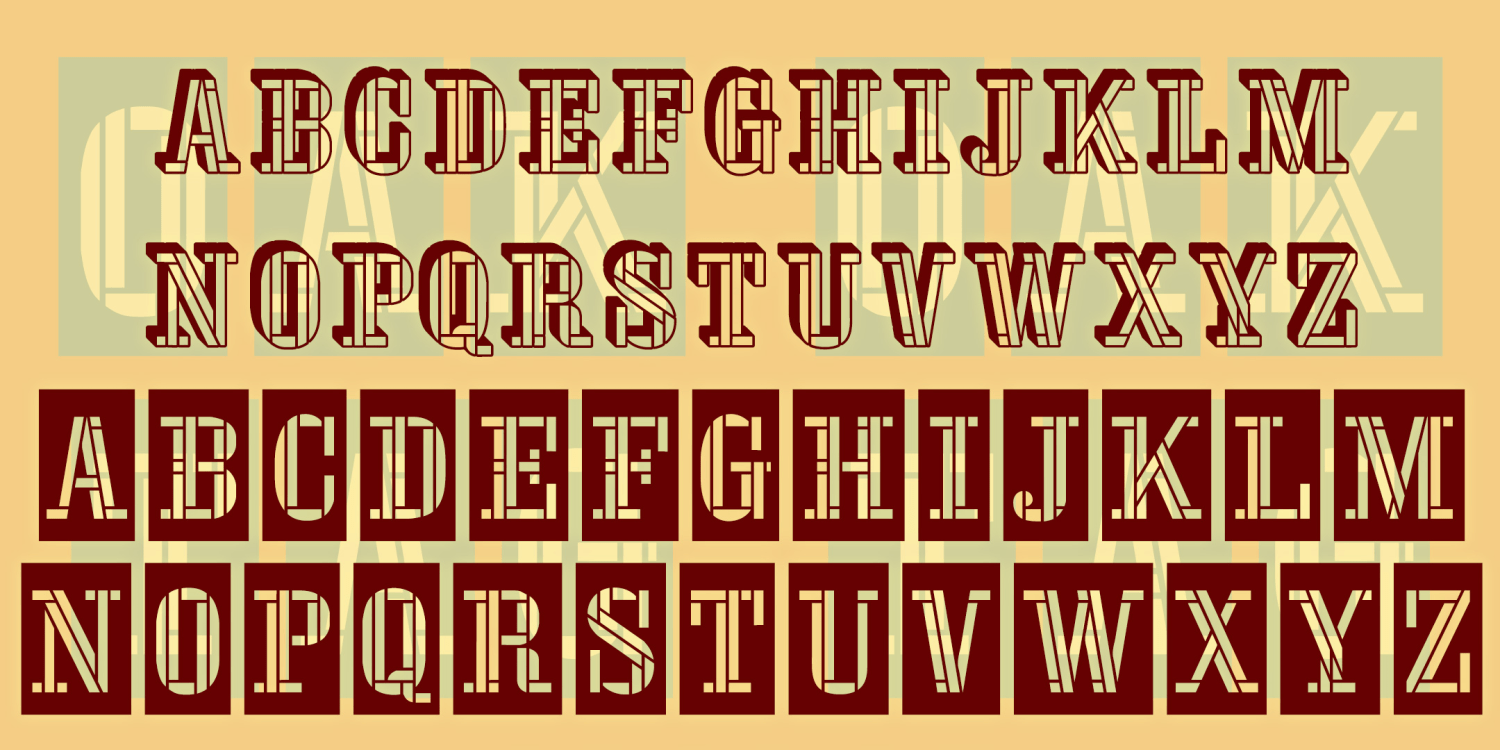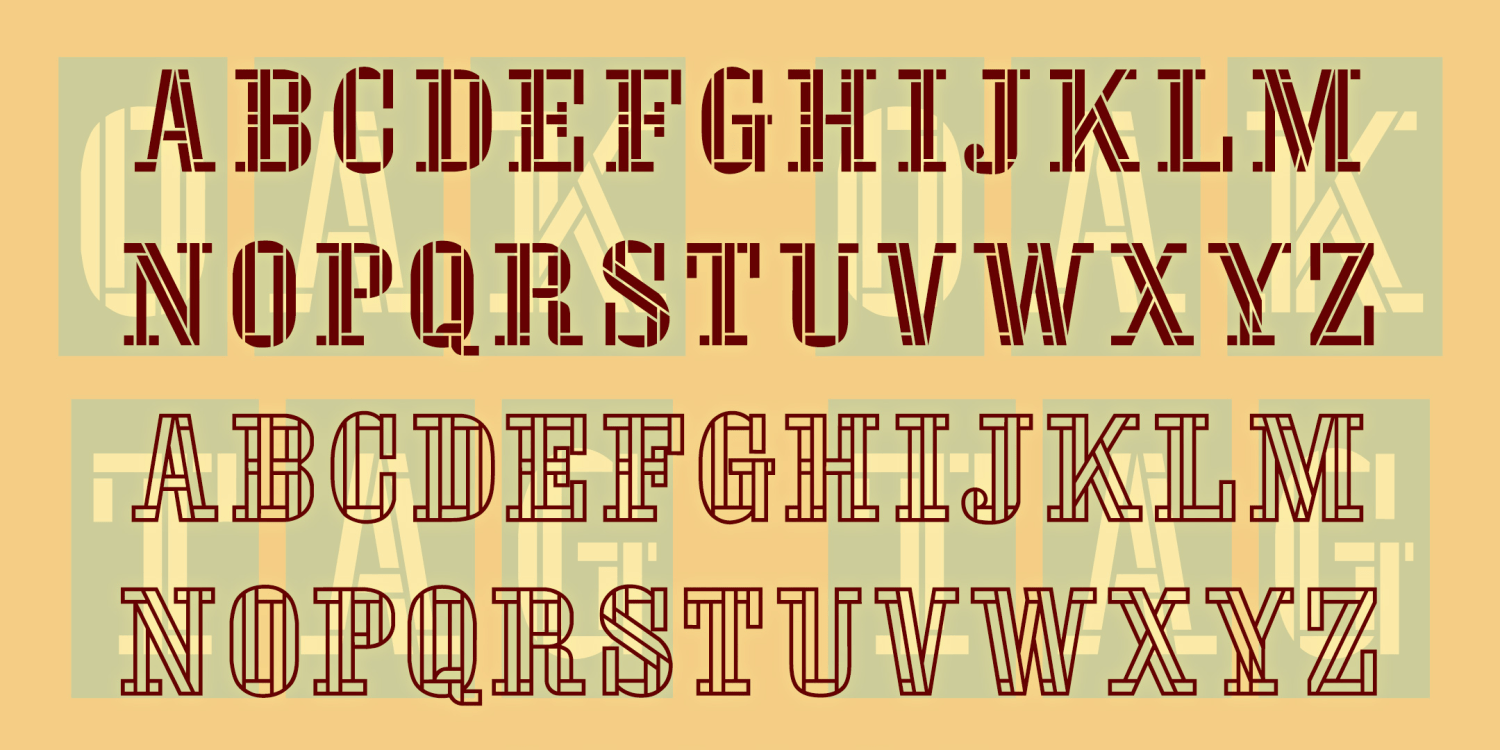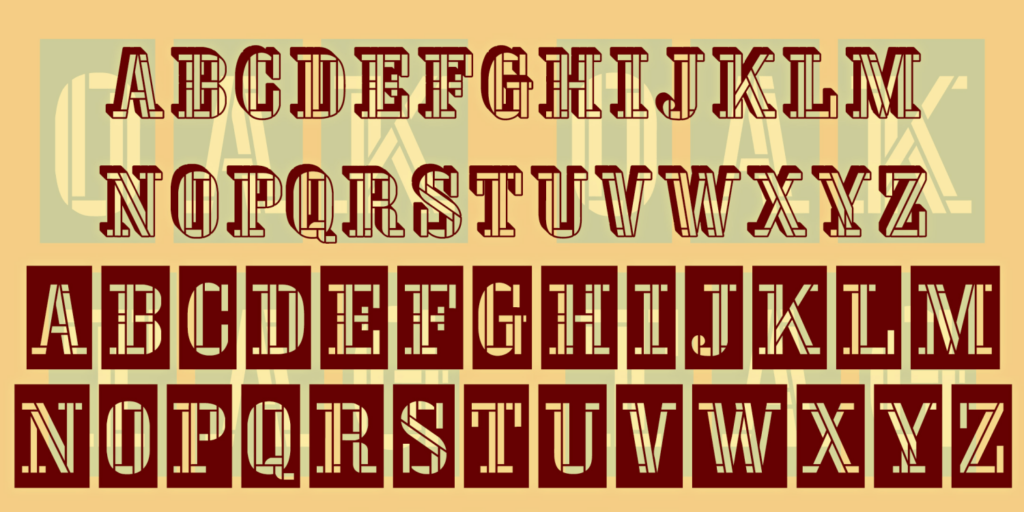
About Oaktag
OAKTAG is a set of 6 unique stencil fonts, inspired by the one-character logo of England's Channel Four. I started with just one character, 4, and applied the same constructed style to all the characters. Later I expanded the set to include Outline,…